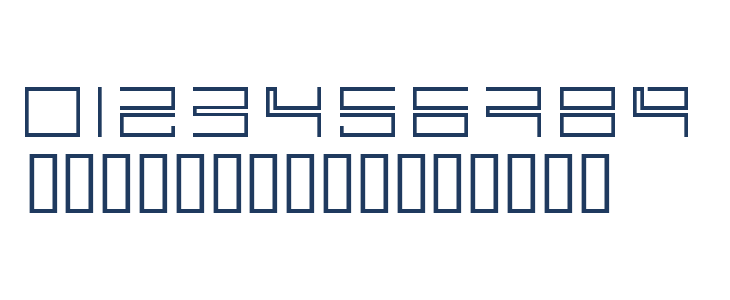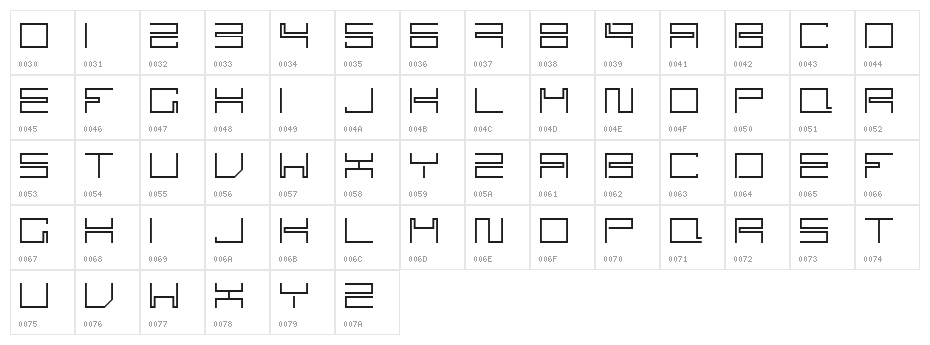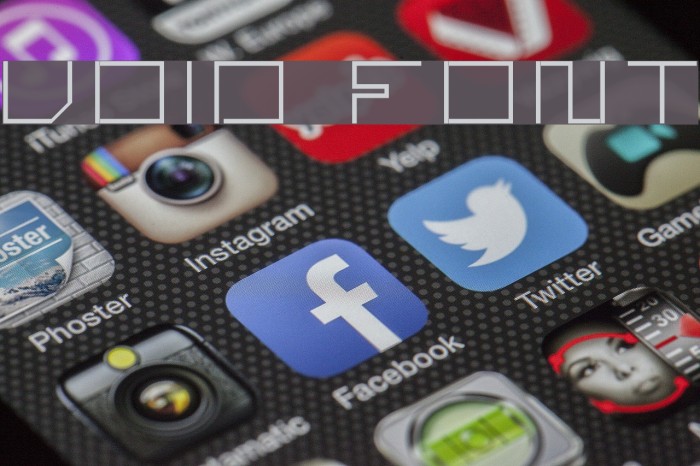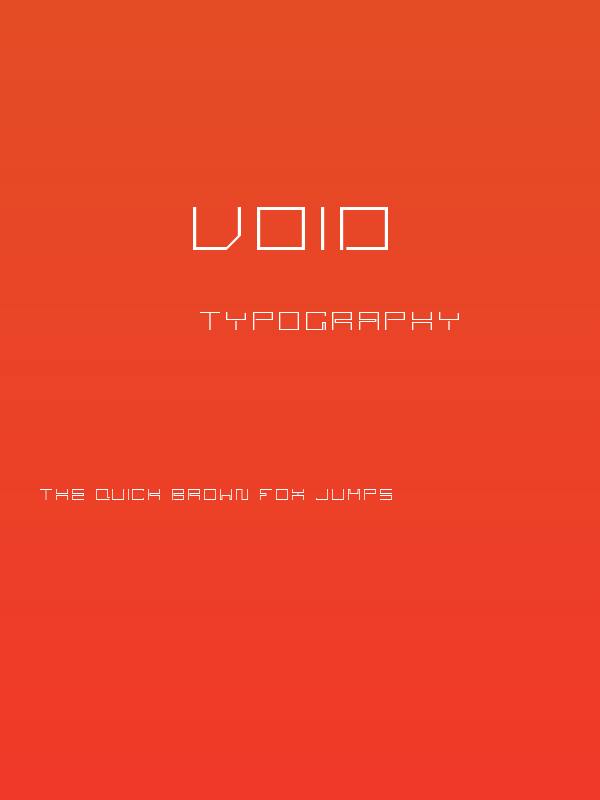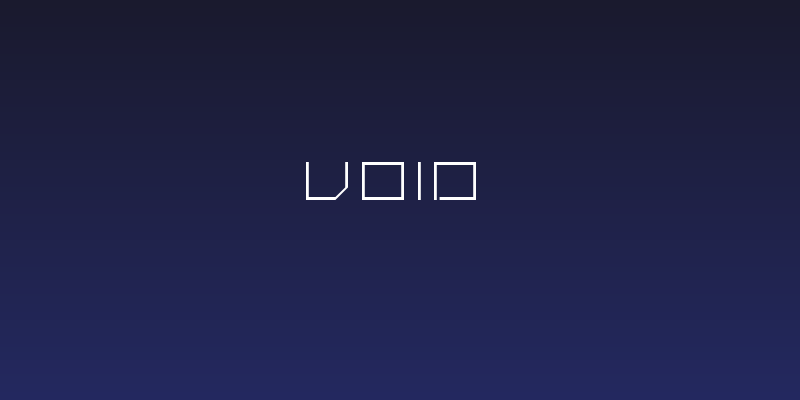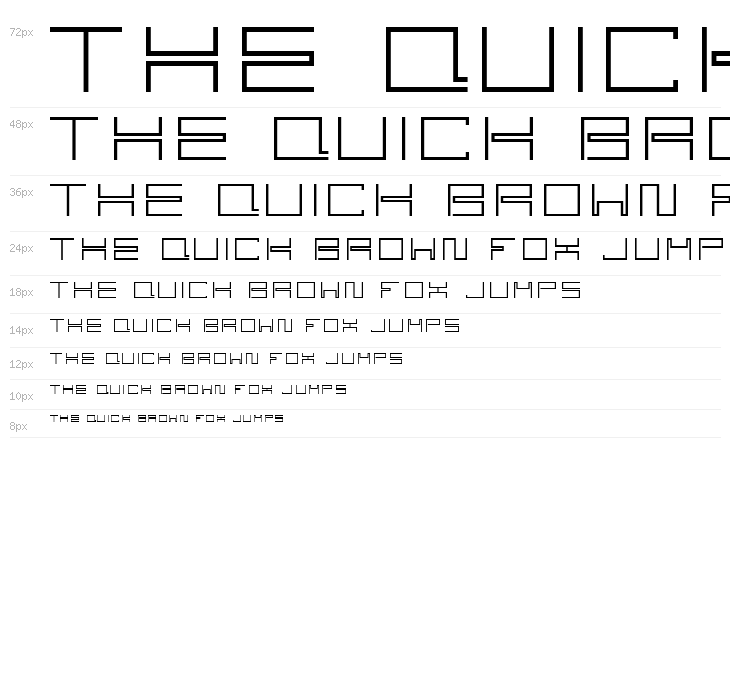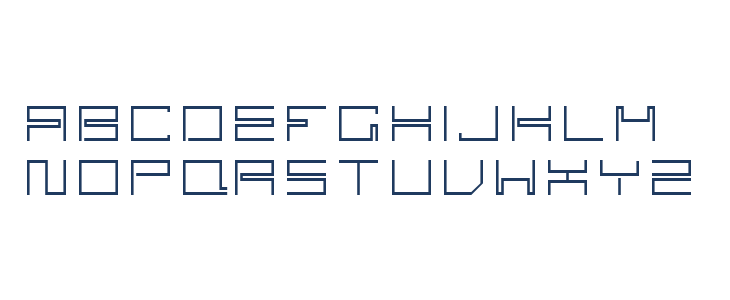
Void Font
Void Description
This font features a geometric and futuristic design with a distinct modular structure. Each character is composed of straight lines and sharp angles, creating a sense of precision and modernity. The uppercase and lowercase letters maintain a consistent height, contributing to a uniform appearance. The numerals and special characters follow the same design principles, ensuring cohesion across all elements. The font's minimalistic style is ideal for projects that require a clean and contemporary look.
Proposed ProjectsIdeal for technology branding, modern posters, digital interfaces, and sci-fi themed projects.